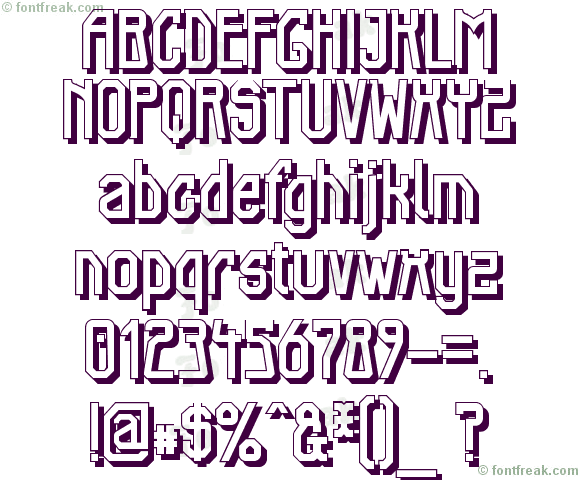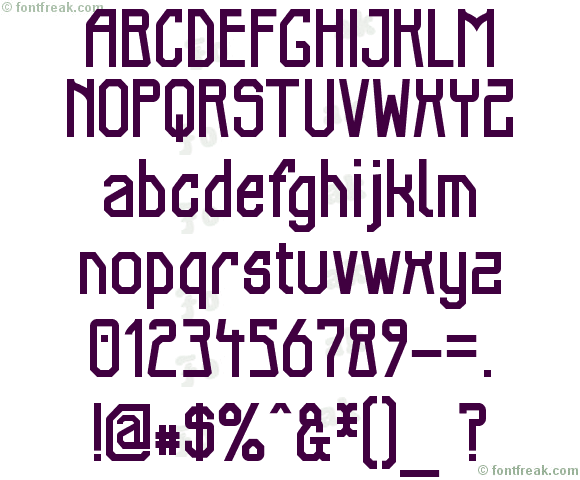
Elb-Tunnel
Elb-TunnelSchatten
The Elb Tunnel font, designed by Peter Wiegel, is an innovative display typeface that showcases a unique blend of modern and industrial aesthetics. This font is categorized as a sans-serif typeface, characterized by its clean lines and geometric forms. The stroke weight is consistent, giving the typeface a sturdy appearance, while the spacing between characters is well-balanced, enhancing readability. The overall design incorporates subtle decorative elements that evoke a sense of structure, making it visually appealing and distinctive.
Elb Tunnel font is particularly well-suited for a variety of creative applications. It shines in settings such as movie posters, where its bold presence can draw attention and convey a sense of urgency. Additionally, it works beautifully for restaurant menus, providing a modern touch that can elevate the dining experience. Graphic designers will find it useful for branding projects, especially for businesses seeking a contemporary edge. Event planners might also appreciate its versatility in creating eye-catching wedding invitations or promotional materials for special events.
What sets the Elb Tunnel font apart is its ability to merge functionality with a striking visual style. Its industrial vibe combined with modern design elements makes it a go-to choice for creatives looking to make an impactful statement. For those interested in enhancing their design toolkit, the Elb Tunnel font free download is an excellent opportunity to incorporate this unique typeface into their work.